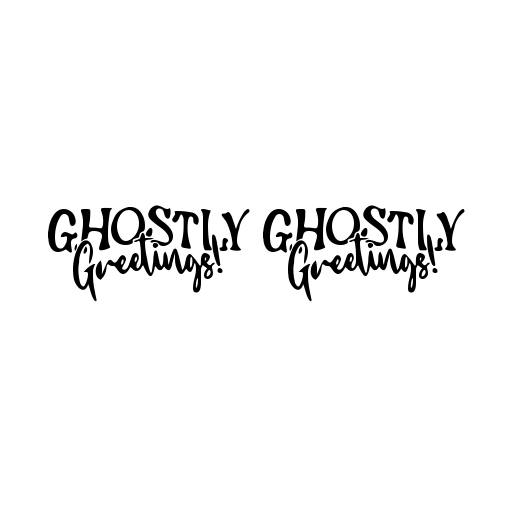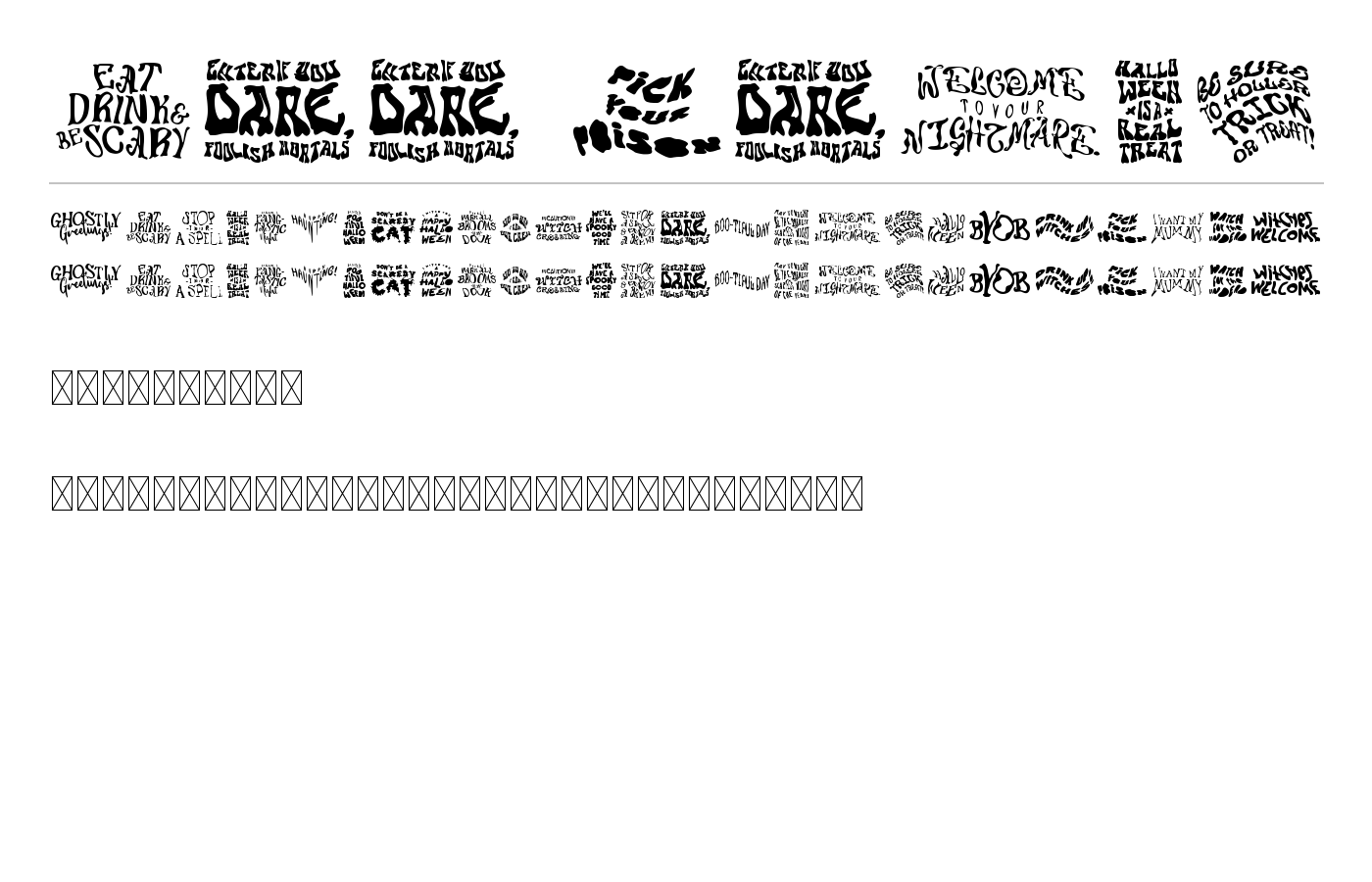
Boo Words is a quirky, playful display font with a spooky, hand-drawn style perfect for Halloween themes. Its uneven, wavy letterforms and irregular stroke widths create a fun yet eerie vibe, making it ideal for party invitations, posters, and seasonal branding that want to capture a whimsical, spooky mood. This font shines in headline use where its unique personality can stand out and add character to festive designs.
Boo Words Font
About Boo Words Font